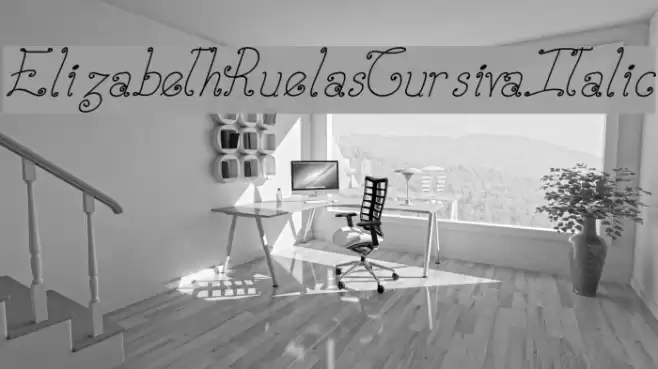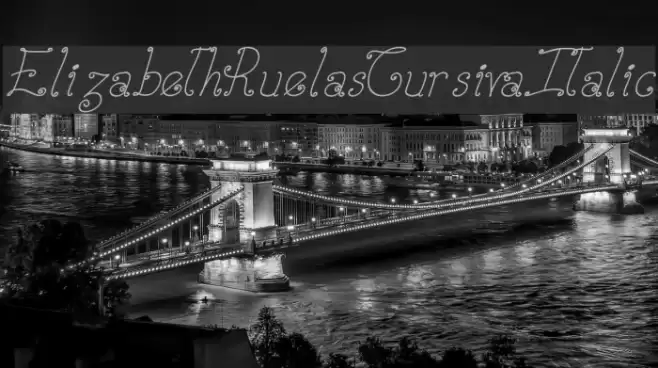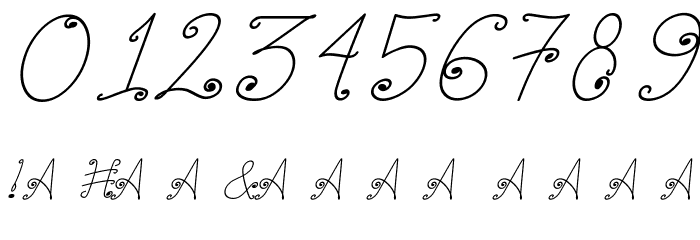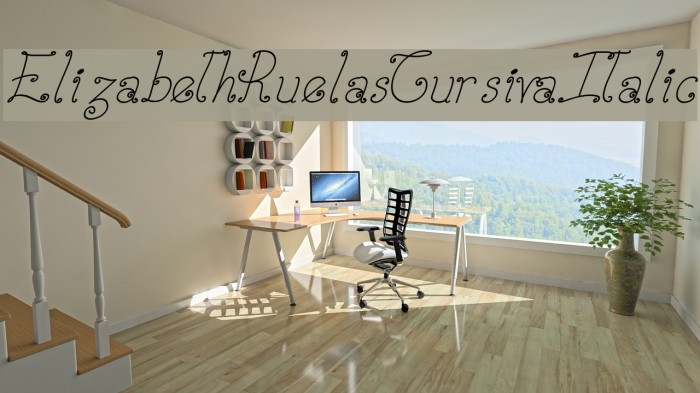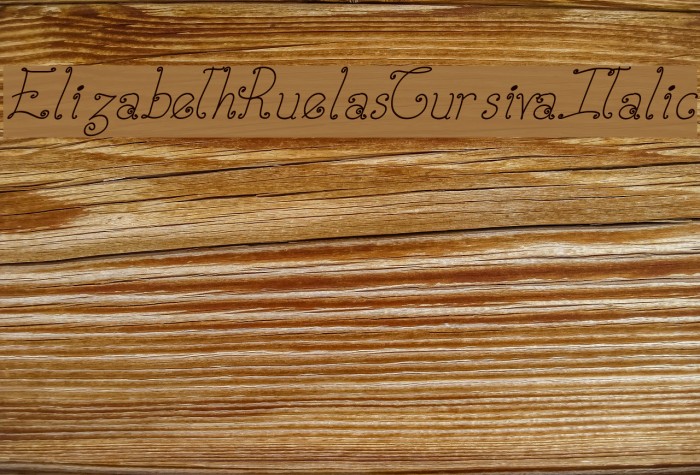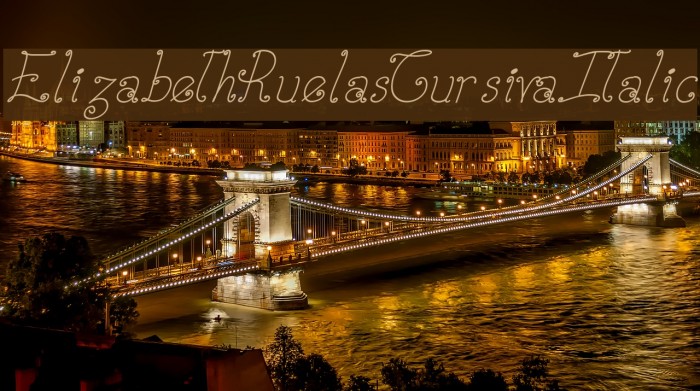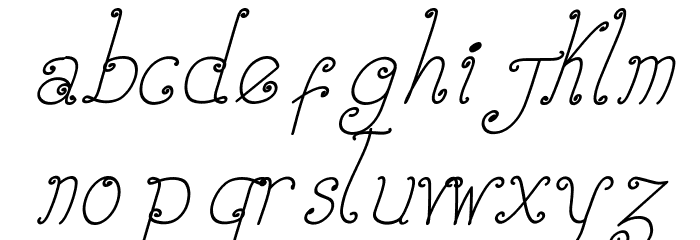
Elizabeth-Ruelas-Cursiva-Italic Font
Elizabeth-Ruelas-Cursiva-Italic Description
This font features an elegant and flowing cursive style with a distinct italic slant. Each character is adorned with delicate swirls and loops, giving it a whimsical and decorative appearance. The uppercase letters are tall and graceful, while the lowercase letters maintain a consistent flow, enhancing readability. The numerals are uniquely styled to match the overall aesthetic, with similar embellishments. Special characters are creatively integrated, maintaining the font's artistic flair. This font exudes a sense of sophistication and charm, making it suitable for creative and artistic projects.
An elegant cursive font with decorative swirls and an italic slant from Curly fonts.
- Proposed Projects: Ideal for wedding invitations, greeting cards, artistic branding, and decorative posters.
- Use Case: Logos, Invitations, Decorative Text